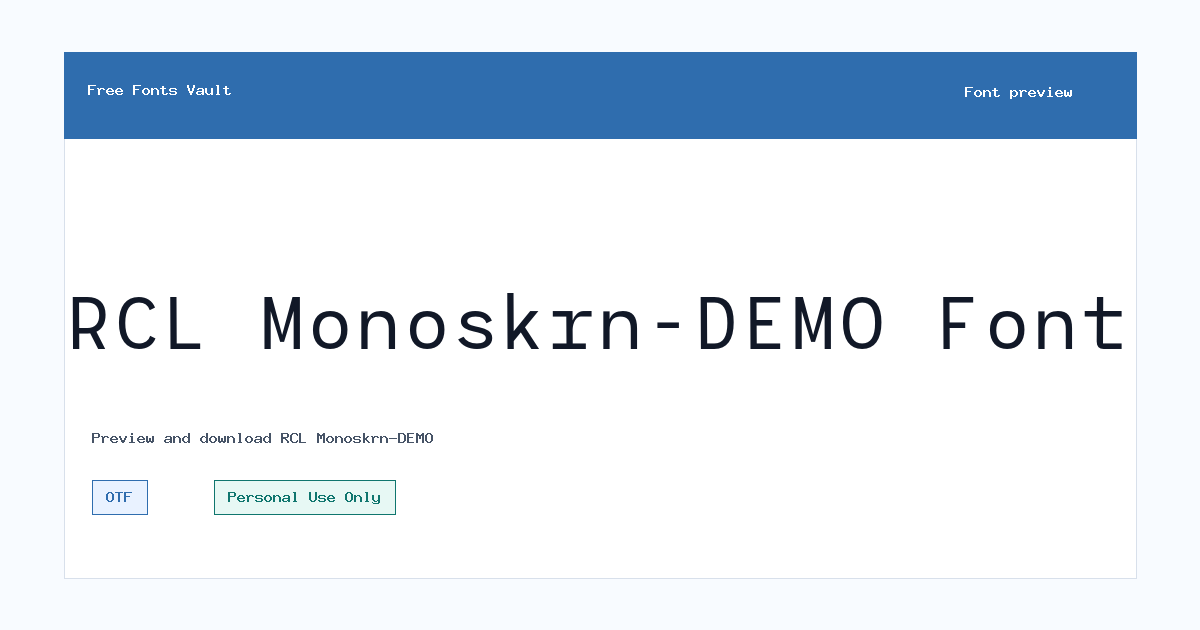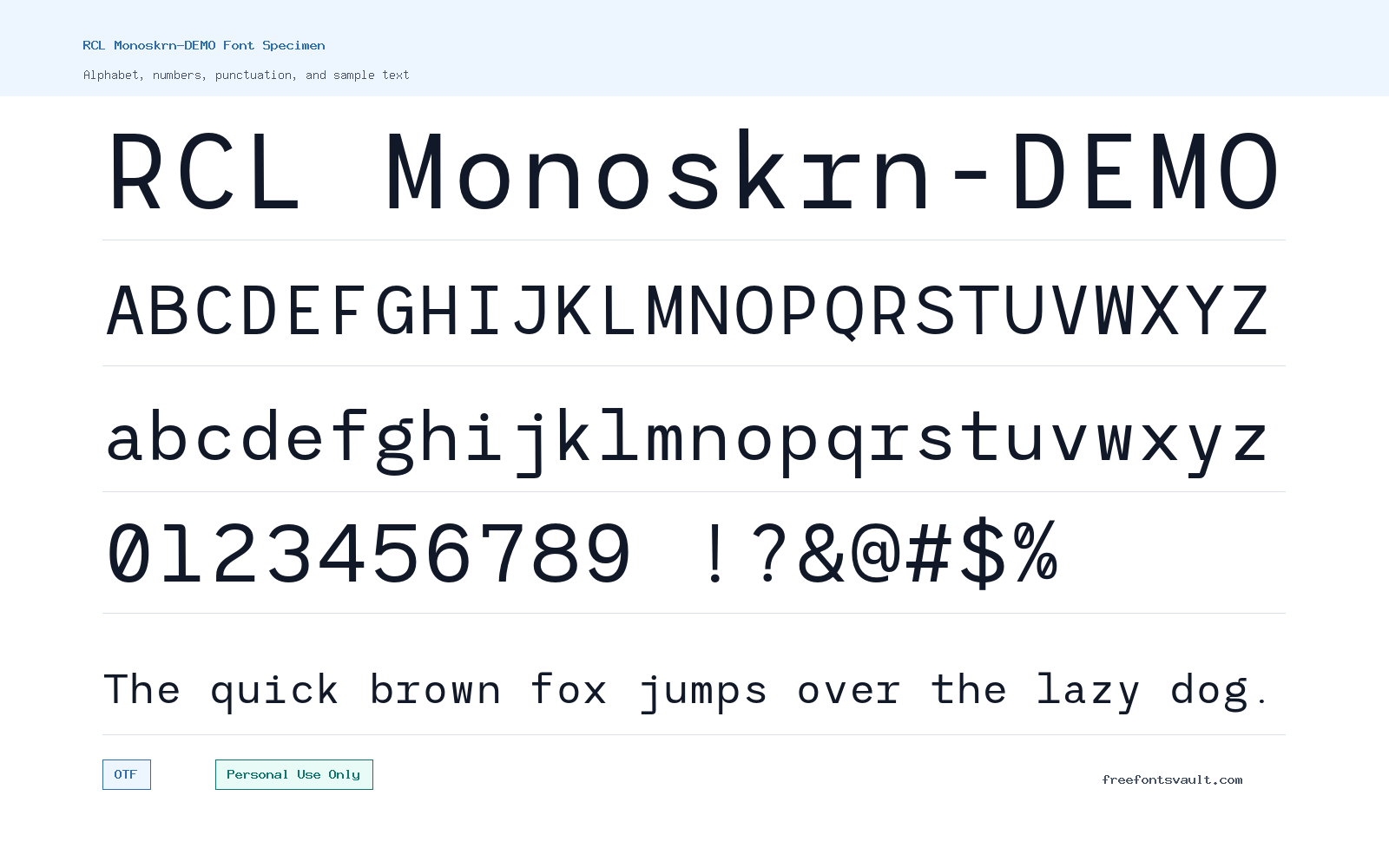
RCL Monoskrn-DEMO
- Designer Bakhrudin Ja'far
RCL Monoskrn-DEMO font.
RCL Monoskrn-DEMO is a demo font with a clean, structured look that works best when you want short text to feel neat, modern, and controlled.
About RCL Monoskrn-DEMO
RCL Monoskrn-DEMO comes as a regular-weight OTF font, making it easy to install and test in most design apps. Its name suggests a monospace-inspired direction, but the safest way to judge it is through the live preview: type your own words, check the spacing, and compare uppercase, lowercase, numbers, and punctuation before using it in a layout. The regular style gives you a straightforward starting point for titles, small labels, display lines, and simple visual tests where a balanced, technical feel is useful.
This font is best treated as a display or short-text choice unless your own preview tests show it works well at smaller sizes. Try it in logo drafts, poster headers, social graphics, packaging mockups, tech-themed artwork, UI-style labels, and editorial accents. For longer reading, pair it with a plain sans serif or a readable serif so the main text stays comfortable. If the letterforms feel tight in your design, increase tracking slightly and give the text more breathing room. Always test the exact words you plan to use, especially names, numbers, and symbols, because demo fonts can behave differently across software and export settings.
- Clean, structured style suited to short display text and preview-based layouts
- Posters, social graphics, headings, labels, and tech-inspired visual concepts
- Logo drafts, title treatments, packaging mockups, and typography experiments
What is RCL Monoskrn-DEMO good for?
It is a practical choice to test for short display text such as headings, posters, labels, social posts, logo drafts, and tech-style graphics.
Can I use it for body text?
Test it carefully first. It may work for short notes or labels, but longer paragraphs usually need a more neutral reading font.
Who designed RCL Monoskrn-DEMO?
The designer is listed as Bakhrudin Ja'far.